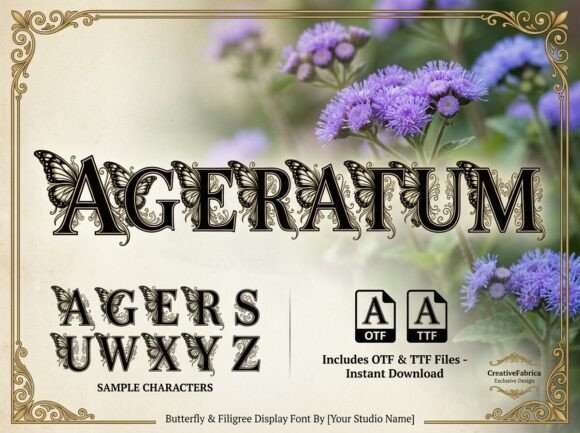
Discover the Enchanting World of Ageratum Font
I’ll never forget the moment I stumbled upon Ageratum Font while working on a luxury event invitation project. My client wanted a design that exuded elegance and sophistication, but I was struggling to find the perfect font to match their vision. That was until I discovered Ageratum – a breathtaking display font that combines nature’s beauty with high-contrast design. In this article, I’ll share my experience with Ageratum, its features, and how to make the most of this stunning font.
Unveiling the Magic of Ageratum Font
Ageratum Font is a masterpiece where classic serif structure meets delicate, ornamental flourishes. Each character is artfully entwined with the wings of a butterfly and intricate filigree swirls, creating a majestic and ethereal look. This font is perfect for designers, crafters, and creative hobbyists looking to add a touch of elegance to their projects.
What I Love About Ageratum Font
• ✨ Elegant and sophisticated design: Ageratum’s high-contrast design and ornamental flourishes make it perfect for luxury branding and high-end editorial layouts.
• ✅ Versatile and readable: The classic serif structure provides a solid foundation for readability, making it suitable for body text and headings.
• 🌿 Nature-inspired elements: The delicate wings of a butterfly and filigree swirls add a touch of whimsy and wonder to your designs.
While Ageratum Font is a stunning addition to any design project, there are a few quirks to be aware of:
• 🤔 Glyph limitations: Some users have reported that certain glyphs, such as ligatures, can be finicky to access. However, with the right software and a little practice, you’ll be able to unlock Ageratum’s full potential.
• ⚠️ Font size sensitivity: Ageratum’s intricate design can become lost at smaller font sizes. Experiment with different sizes to find the sweet spot for your project.
The Story Behind Ageratum Font
Ageratum Font was inspired by the delicate beauty of nature and the art of traditional typography. Its creator, a talented type designer, sought to combine the elegance of serif fonts with the whimsy of ornamental flourishes. The result is a font that is both majestic and ethereal – perfect for designers looking to add a touch of luxury to their projects.
Font Name Ageratum Font
Author Raholco
What is Ageratum Font best suited for? Ageratum Font is perfect for luxury branding, high-end editorial layouts, fantasy book covers, and luxury event invitations.
Is Ageratum Font suitable for body text? While Ageratum Font is primarily designed for display purposes, its classic serif structure makes it readable for body text. However, it’s recommended to use it for headings and titles.